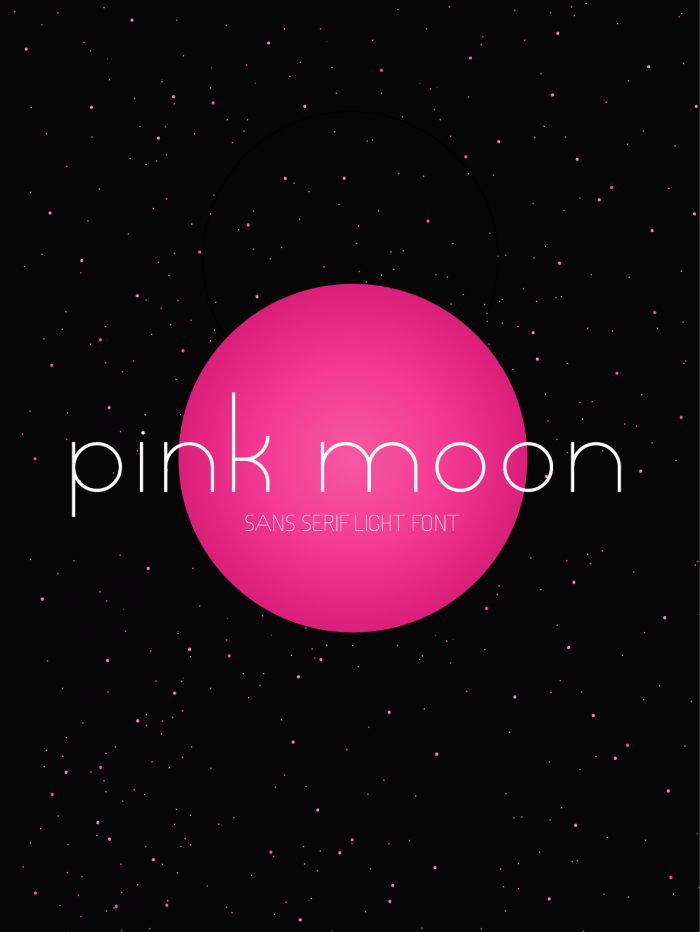
Wow, this makes me regret I dug into low-res pixel fonts only! Funny smaller dots b.t.w.
This gives a pleasant light 'basic' text. As there's no font/design/course-study-project info we'll get to see numerals and missing punctuation, currency and  text symbols (on the basic Latin and More Latin sets)?
Thank you for all the comments! I am already working on the numbers and text symbols, im brazilian so I miss them too. New updates are coming soon :)